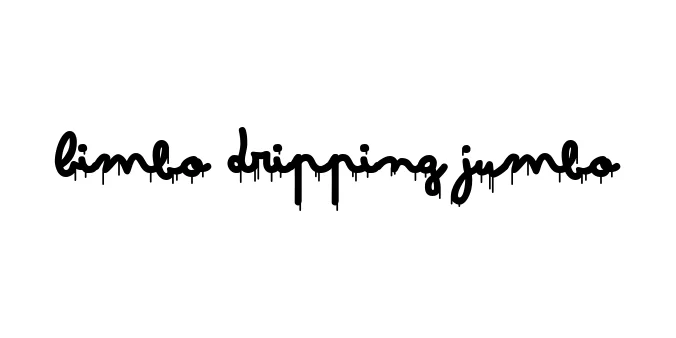
Bimbo Dripping Jumbo
Designed by Francesco Canovaro (Zetafonts)
Bimbo Dripping Jumbo is an expressive variant of the Bimbo typeface family, a massive handwriting project designed by Francesco Canovaro. This specific style captures the raw and spontaneous energy of street art and marker calligraphy. It features exaggerated, monolinear letterforms that appear to be heavily saturated with ink, causing realistic paint drips to flow from the bottom of each character. This aesthetic blends the innocence of childlike handwriting with a gritty, urban edge.
The font is part of a larger system that aims to provide a natural, human touch to digital designs. Bimbo Dripping Jumbo is particularly suited for projects that require a high-impact, DIY aesthetic without sacrificing legibility. Its unique dripping effect adds a sense of vertical movement and texture, making it a standout choice for designers looking to incorporate elements of graffiti or liquid typography into their visual storytelling.
Bimbo Dripping Jumbo Best Uses
Perfect for t-shirt graphics and apparel labels looking for a raw, urban vibe.
Excellent for concert flyers, art gallery openings, and high-impact event promotion.
Great for creating eye-catching headers and bold thumbails with a tactile feel.
Adds a unique, hand-crafted look to artisanal products or craft beverage labels.